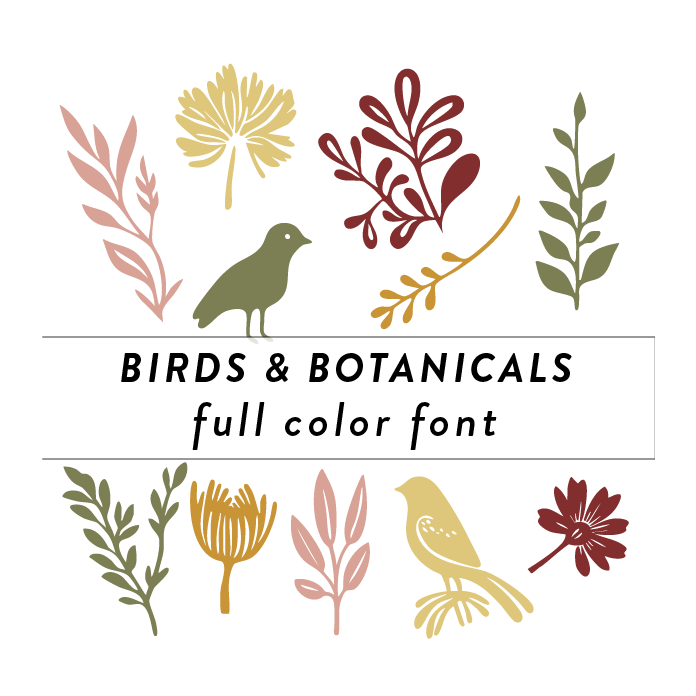
Birds & Botanicals Full Color Font is a vibrant and intricate font design featuring detailed illustrations of birds, trees, branches, and leaves. The colorful elements add a whimsical and nature-inspired touch to any project, making it perfect for designs that require a lively and organic feel. This font is a OTF craft font that will appear in color only when used with the silhouette software.